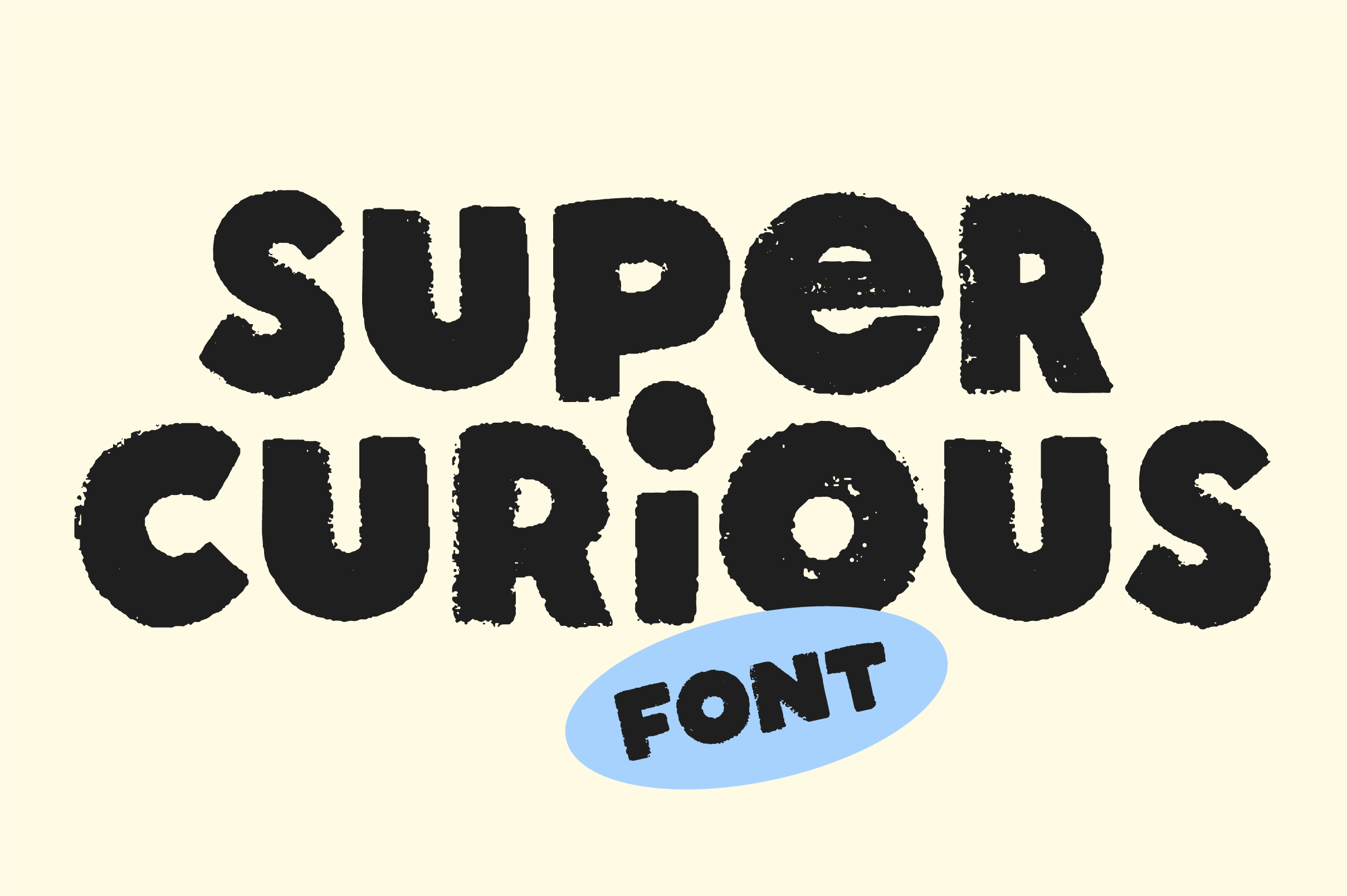
Super Curious - Textured Retro Font
Super Curious Font! This hand-lettered unicase font was inspired by the beautiful imperfections of vintage printing and the modern playfulness of hand-lettering.
I hand drew each character so each has a unique texture and shape. I also created multiple alternates and ligatures to allow this font to have those unique variations that give it a handmade, hand-lettered, texture-rich look!
Works great for logos, display, quotes, art, stickers, titles, and a handmade touch.
What's in the font? Unicase Letters A-Z! Numbers! Symbols! Punctuation! Alternates! Ligatures! (see slides!)